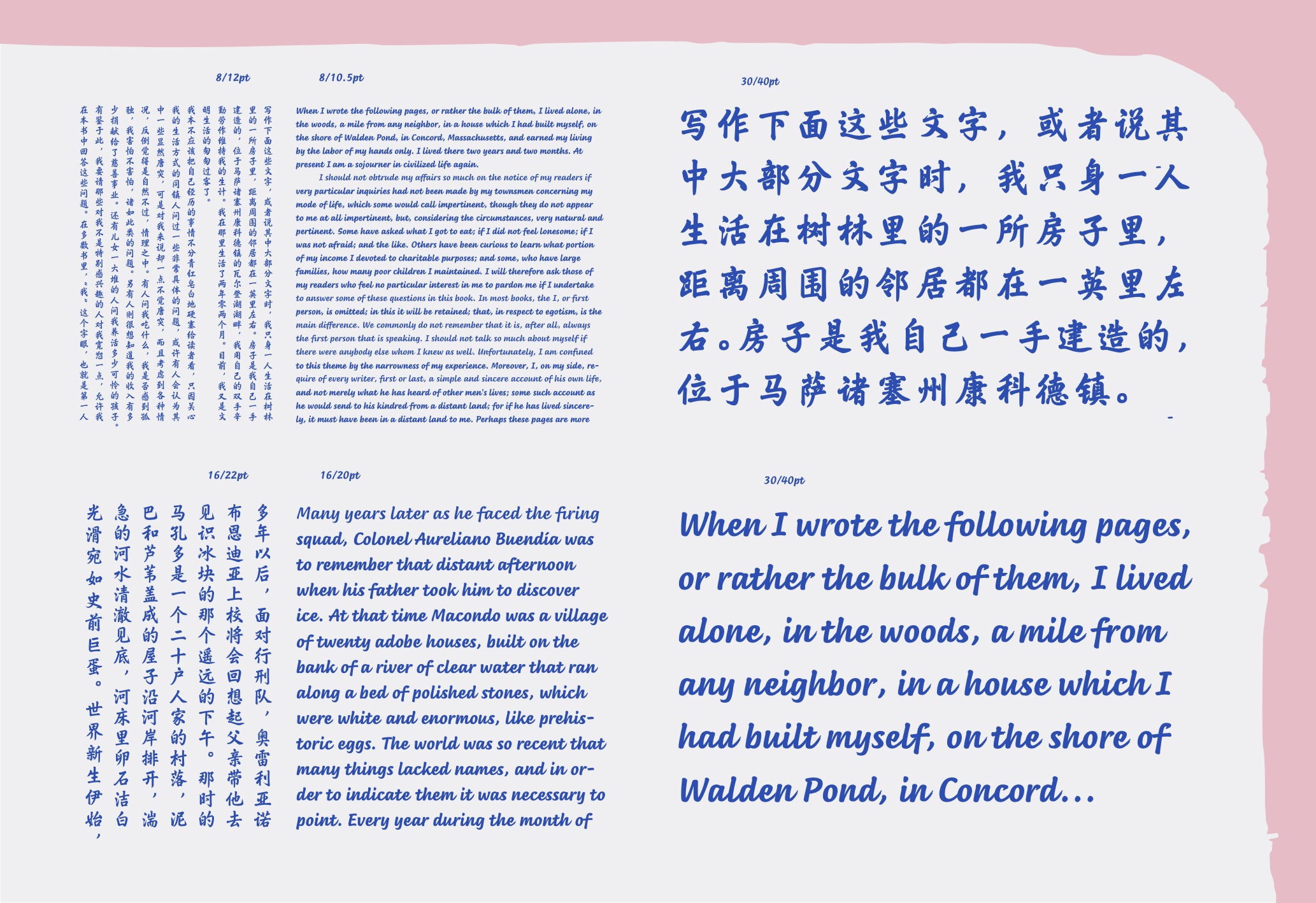
Yu Li Liu
[Willie Liu]
Yu Li (Willie) Liu is a type designer at 3type in Shanghai. Holding a bachelor degree in Urban & Rural Planning, he is currently enrolled in the Media & Communication Design Program in TJDI (Tongji University College of Design and Innovation, China). He is the creator of Dinkie Bitmap, an experimental multi-script typeface that tests the legibility of Hanzi in extreme conditions. Designer of Dinkie Bitmap (2018-2020), a pixel typeface for Latin, Arabic, Hebrew, Cyrillic and Chinese. Award winner at 25 TDC in 2022 (with Xiaoyu Liu) for Hanyi YihexianJing. He writes: This typeface was not made by auto-tracing. On the contrary, designers extracted the features of about 100 characters from Qianlong's original calligraphy work. Then the team designed the rest of the 9000 characters. Qianlong's calligraphy was inspired by Wang Xizhi (303AD---361AD), one of China's greatest calligraphers. |